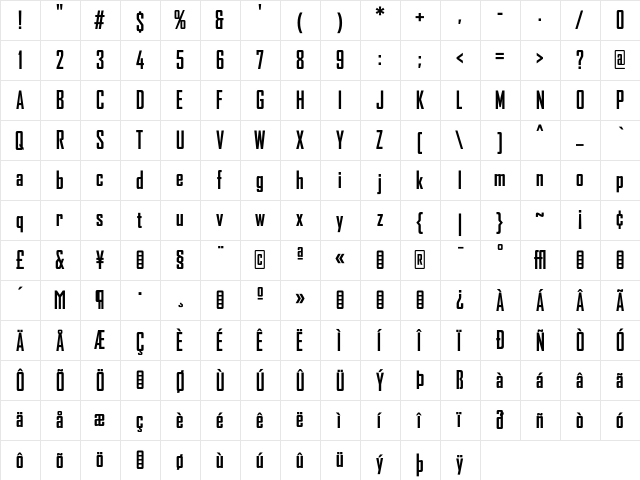
AgencyFB BoldCondensed Font Preview
AgencyFB BoldCondensed
Design Context for AgencyFB Typeface
AgencyFB offers clean, dependable letterforms without strong stylistic allegiance, making it a practical choice for designers who need flexibility. Its bold stroke weight gives it real presence on the page. Its narrow stance lets it pack a punch even in space-constrained designs.
Pro Tip: Pair AgencyFB with a font of contrasting weight or personality to build a more expressive typographic hierarchy.